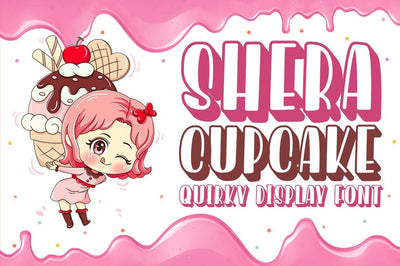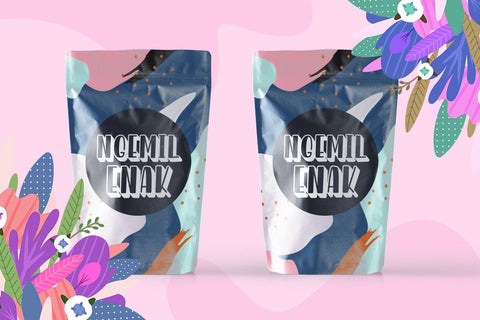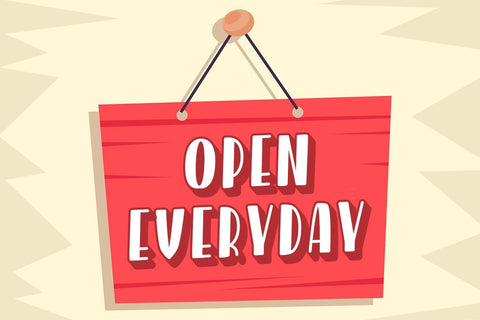
Shera Cupcake Fun Display Font
Shera Cupcake is a cute and sweet display font. This enchanting font will turn any creative idea into a true standout.
Shera Cupcake would be perfect for logos & branding, photography, watermark, social media posts, advertisements, invitation, product designs, label, stationery, product packaging, special events or anything that need handwriting taste.